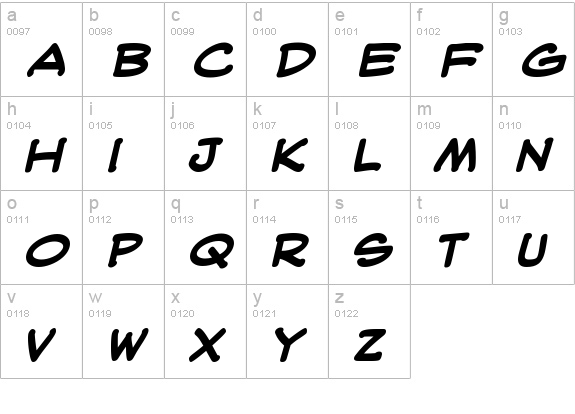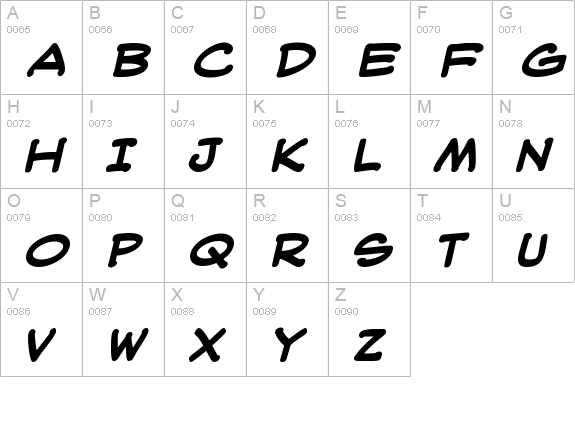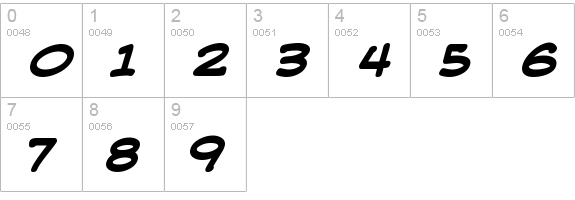
WebLetterer BB Bold Font Details
WebLetterer BB Bold is a strong, high-contrast variant in the WebLetterer typeface family \xE2\x80\x94 well suited to headlines, attention-grabbing titles, and strong calls-to-action.
Introducing WebLetterer BB Bold, a captivating font that effortlessly combines boldness and elegance to transform any design into a visual masterpiece. With its sleek and modern appearance, this font is the perfect choice for websites, logos, posters, and more. WebLetterer BB Bold is not only visually appealing but also highly versatile, making it suitable for a wide range of design projects. Its bold and clean lines command attention while maintaining readability, ensuring that your message is conveyed with utmost clarity. What sets WebLetterer BB Bold apart is its accessibility, as it is freely available to download at FontsMarket.com. This means that you can enhance your creative endeavors without breaking the bank. Whether you are a professional designer or an enthusiastic hobbyist, this font opens up a world of possibilities without any financial constraints. The attention to detail in WebLetterer BB Bold is evident in every curve and stroke, making it a true work of art. Its carefully crafted letterforms exude confidence and style, adding a touch of sophistication to any project. Be it a headline, body text, or even a logo, this font will effortlessly elevate your design to new heights. WebLetterer BB Bold is designed to make an impact, leaving a lasting impression on your audience. Its bold presence demands attention and creates a sense of authority, making it perfect for projects that require a strong visual statement. In summary, WebLetterer BB Bold is a striking font that combines boldness, elegance, and accessibility. Its free availability at FontsMarket.com ensures that everyone can enhance their designs without any financial burden. So why wait? Download WebLetterer BB Bold today and unleash your creativity like never before.